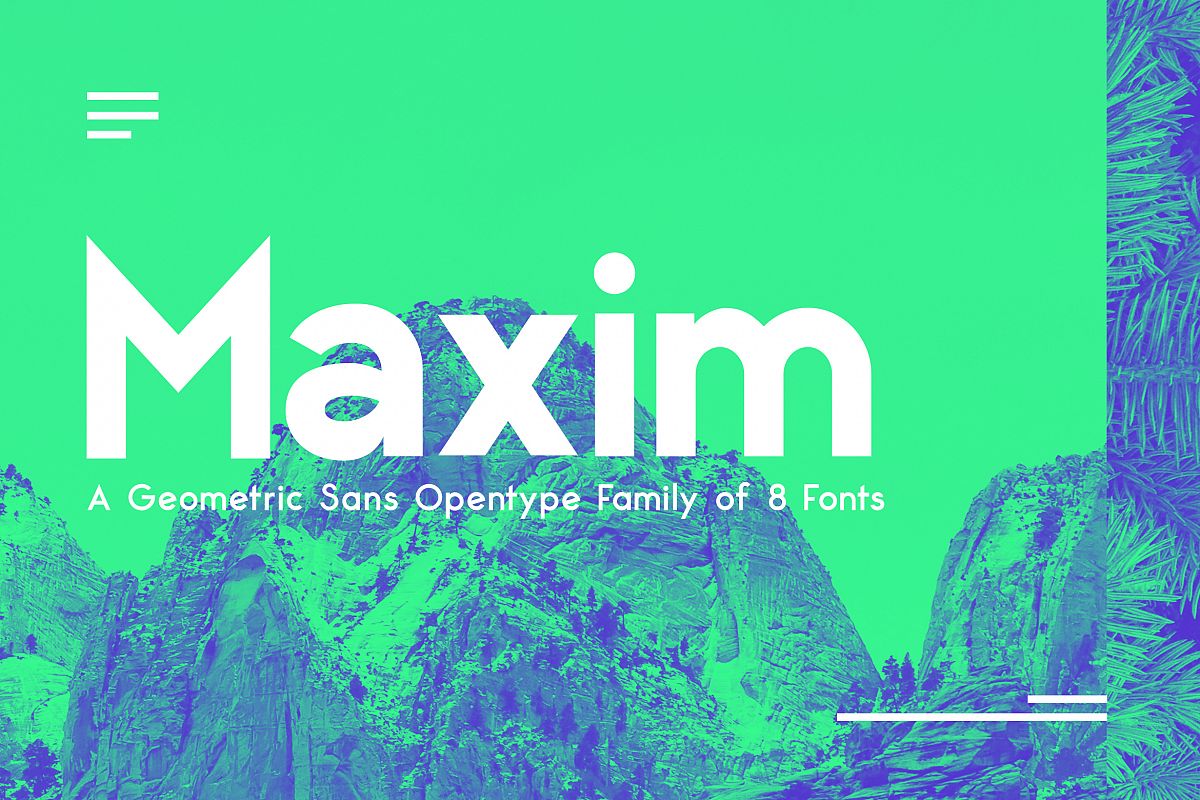
Maximus Sans - A Geometric Sans family of 8 Fonts
Maximus Sans v1.5 is an Dinamic contemporary sans serif font family of 8 fonts. Designed with clean and stylized sporty geometry with harmonious appearance for both texts and headlines. Maximus Sans is perfect companion for branding, editorial and signage, also works great for bigger applications.What's Included?